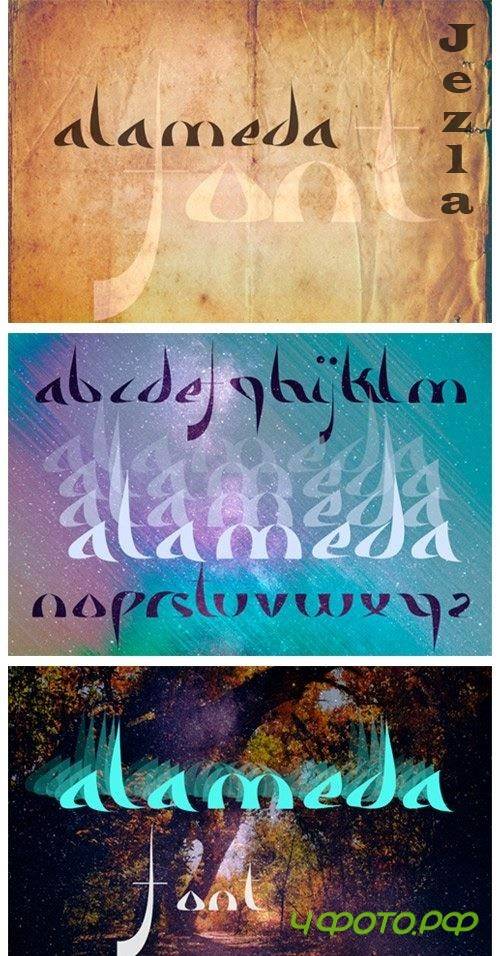
Alameda Font
Alameda is a stylish and original display font. Get creative with its unique playfulness, and use it to brighten up any crafting project!